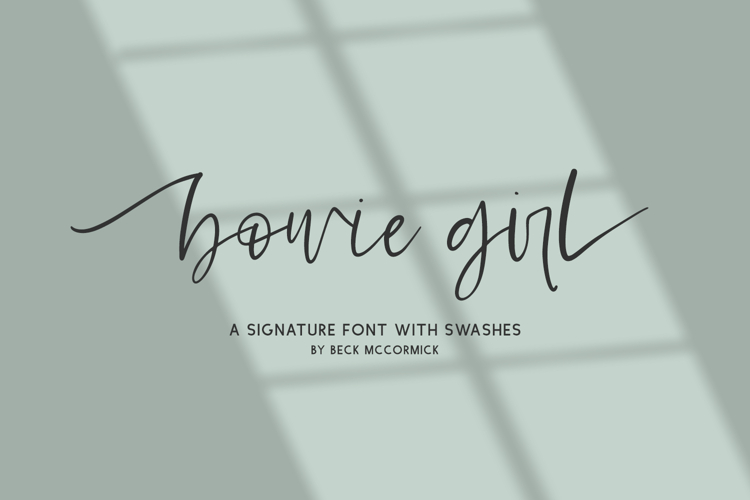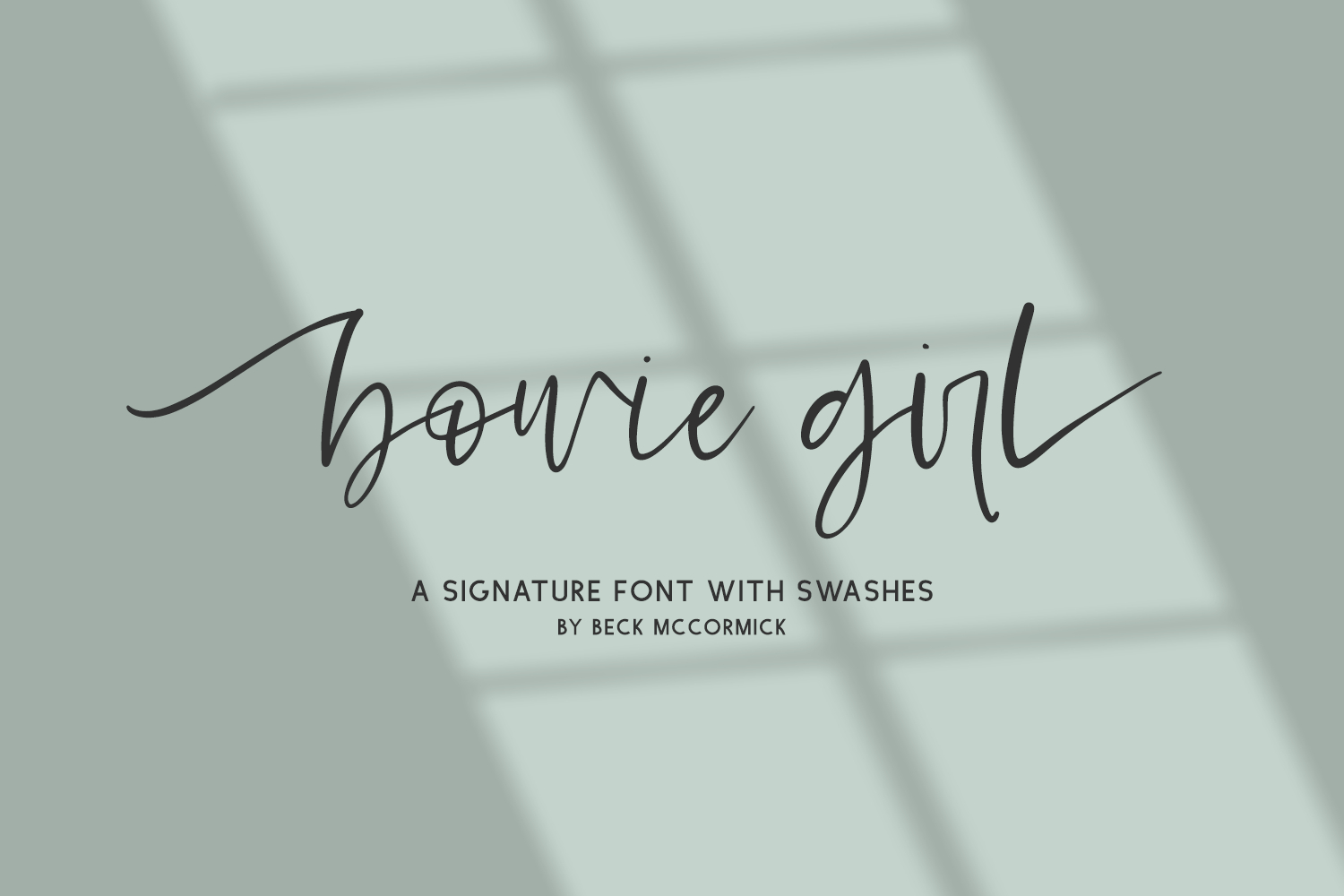
Bowie Girl Script Font
Introducing Bowie Girl, a modern handwriting font. Bowie Girl mimics handwriting, and is a little messy, and a little bouncy, perfect for trendy, modern projects. This font includes ligatures to enhance the handwritten look, as well as left and right swashes on all lowercase characters to add a little extra something!
Bowie Girl includes:
- 52 alternates - 26 left swashes, 26 right swashes on all lowercase characters
- 23 ligatures - ar, bb, ch, cr, dd, dr, ee, er, ff, gg, ir, ll, mm, nn, oo, or, pp, pr, rr, ss, tr, tt, ur